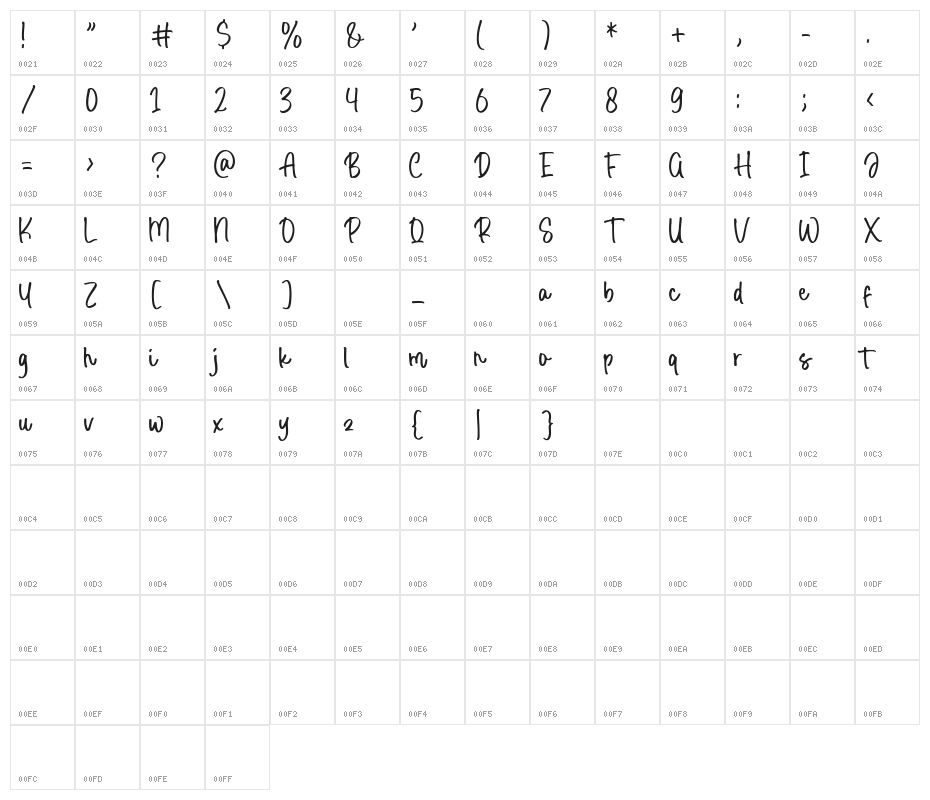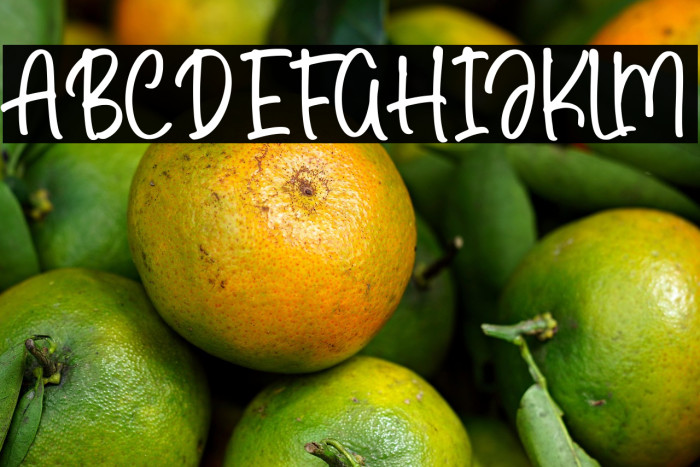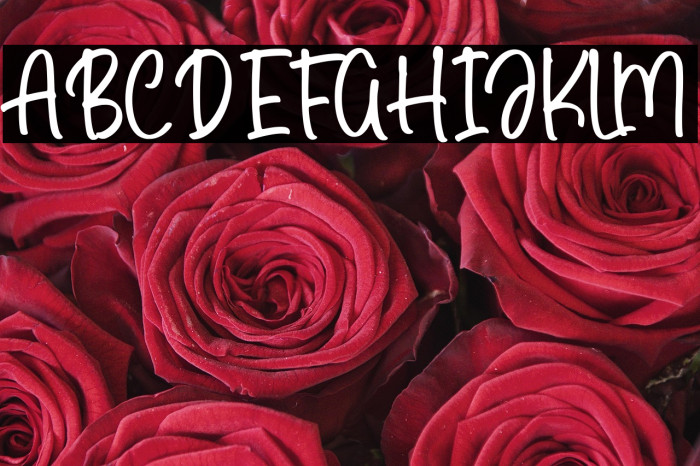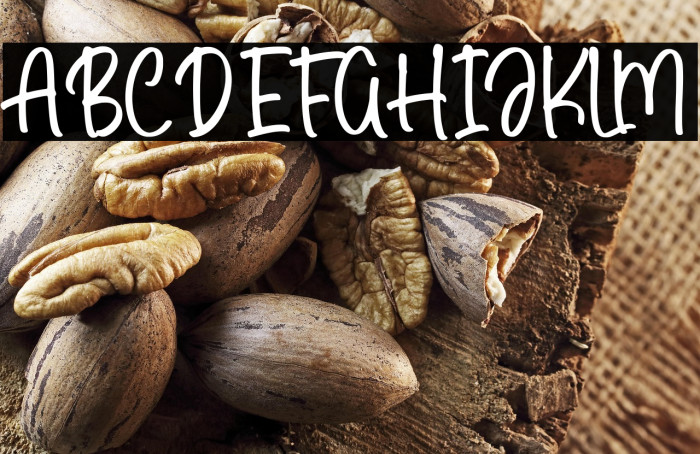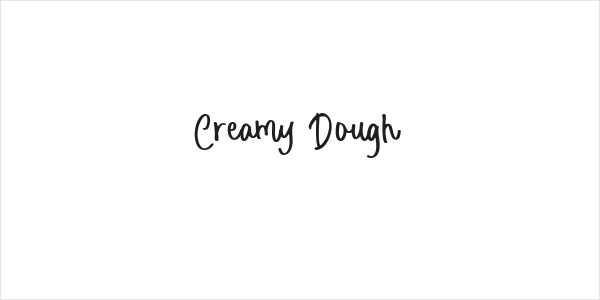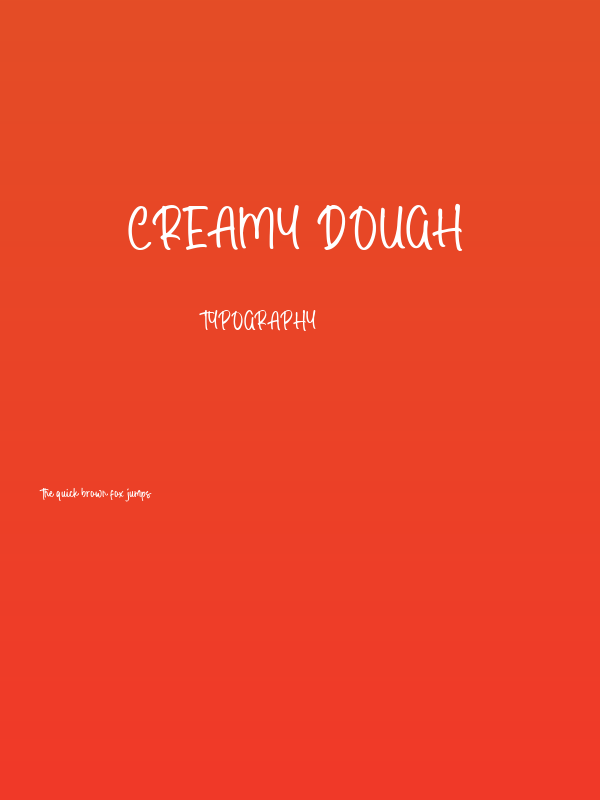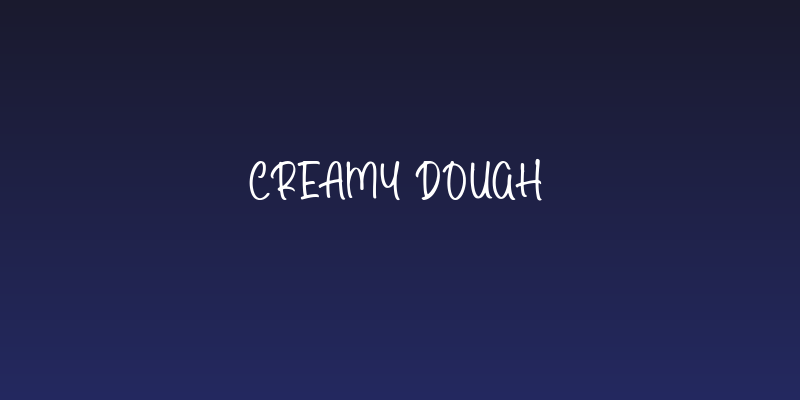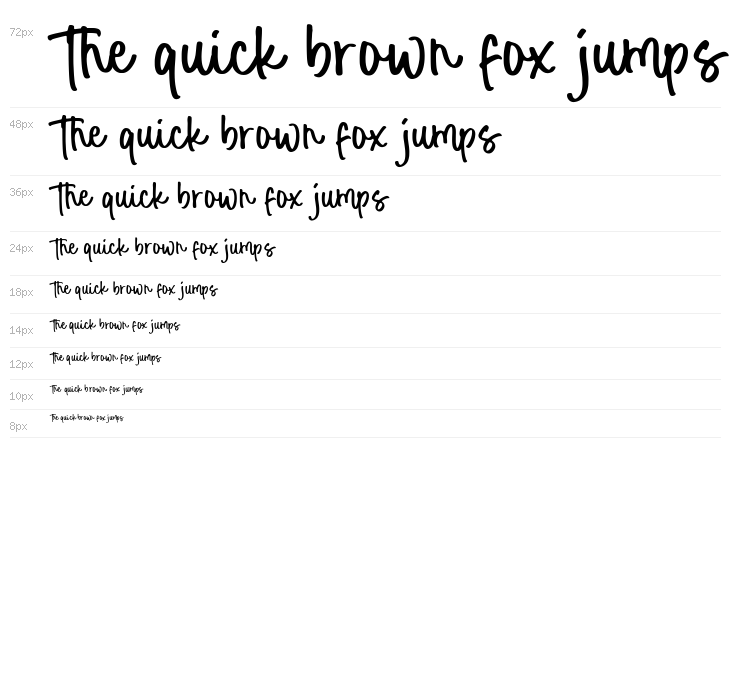
Creamy Dough Font
Creamy Dough Description
A playful, handwritten font with a casual and friendly appearance. The letters have a smooth, flowing style with rounded edges, giving it a warm and inviting feel.
| Overall Style | Casual and friendly |
| Use Case | Logos, headlines, informal text. |
| Proposed Projects | Greeting cards, invitations, personal branding, social media graphics. |